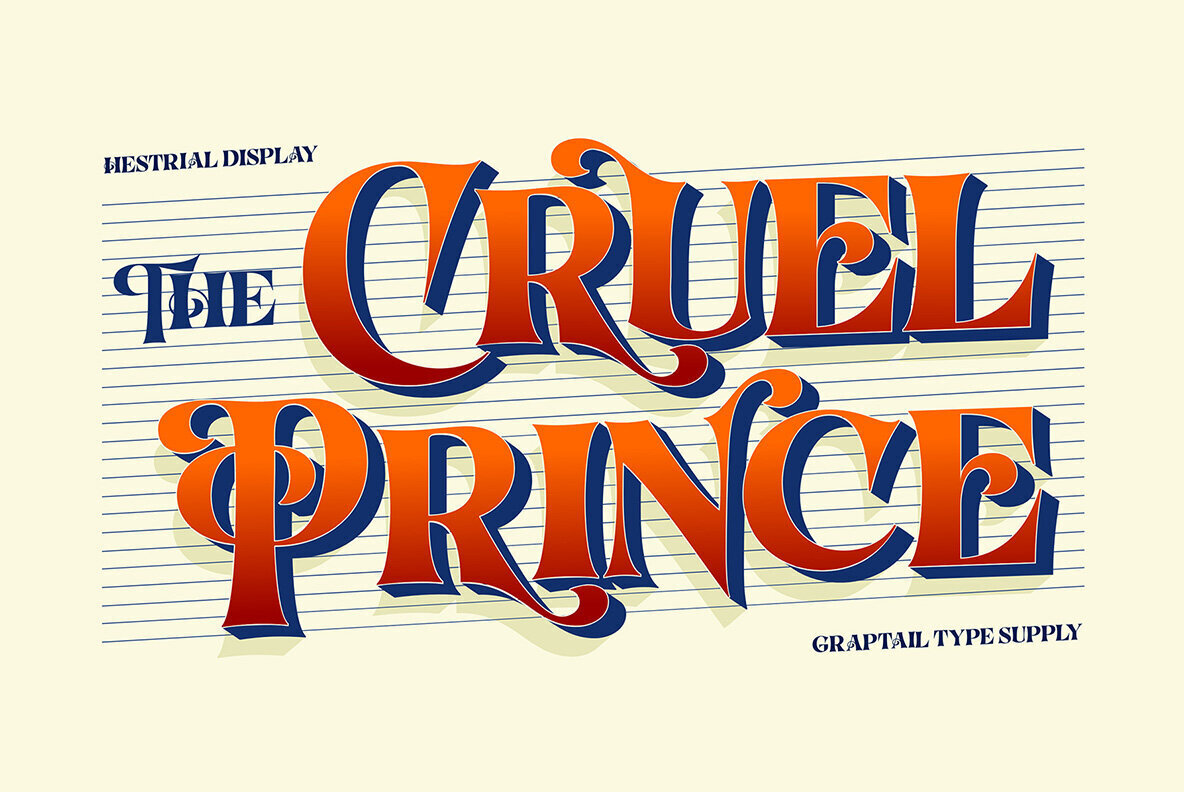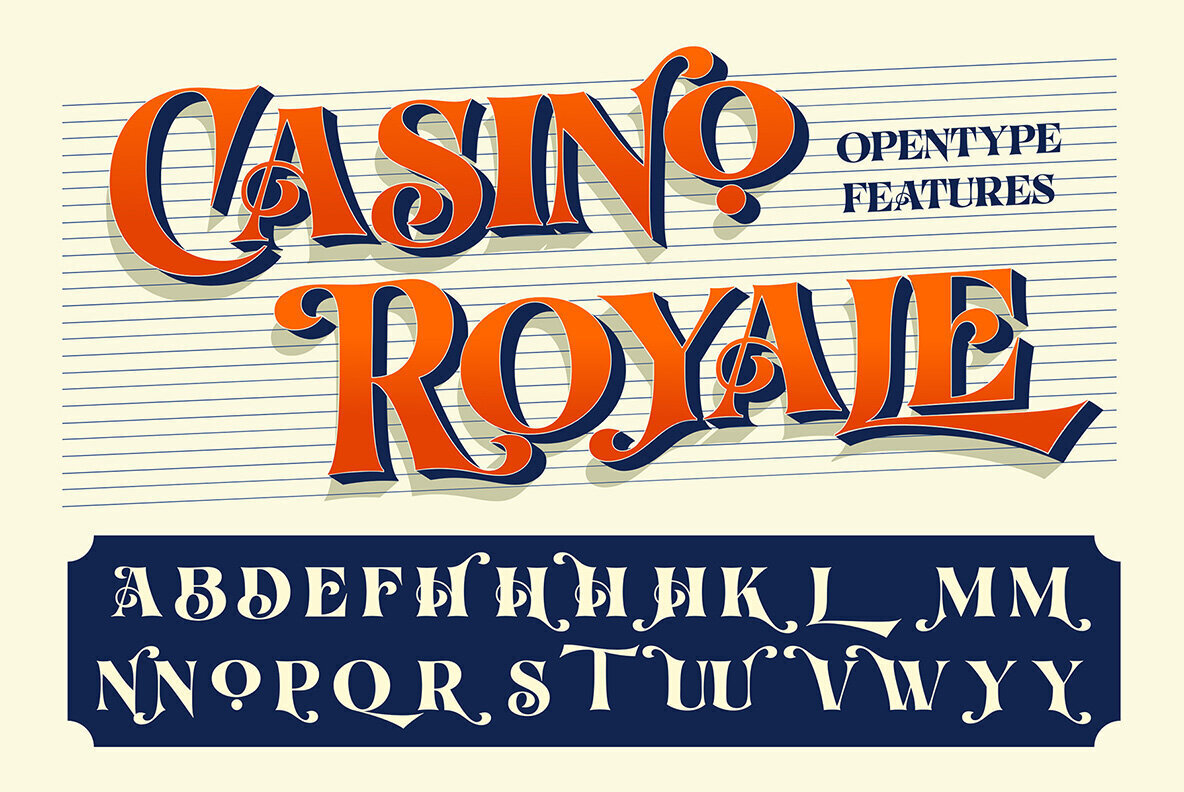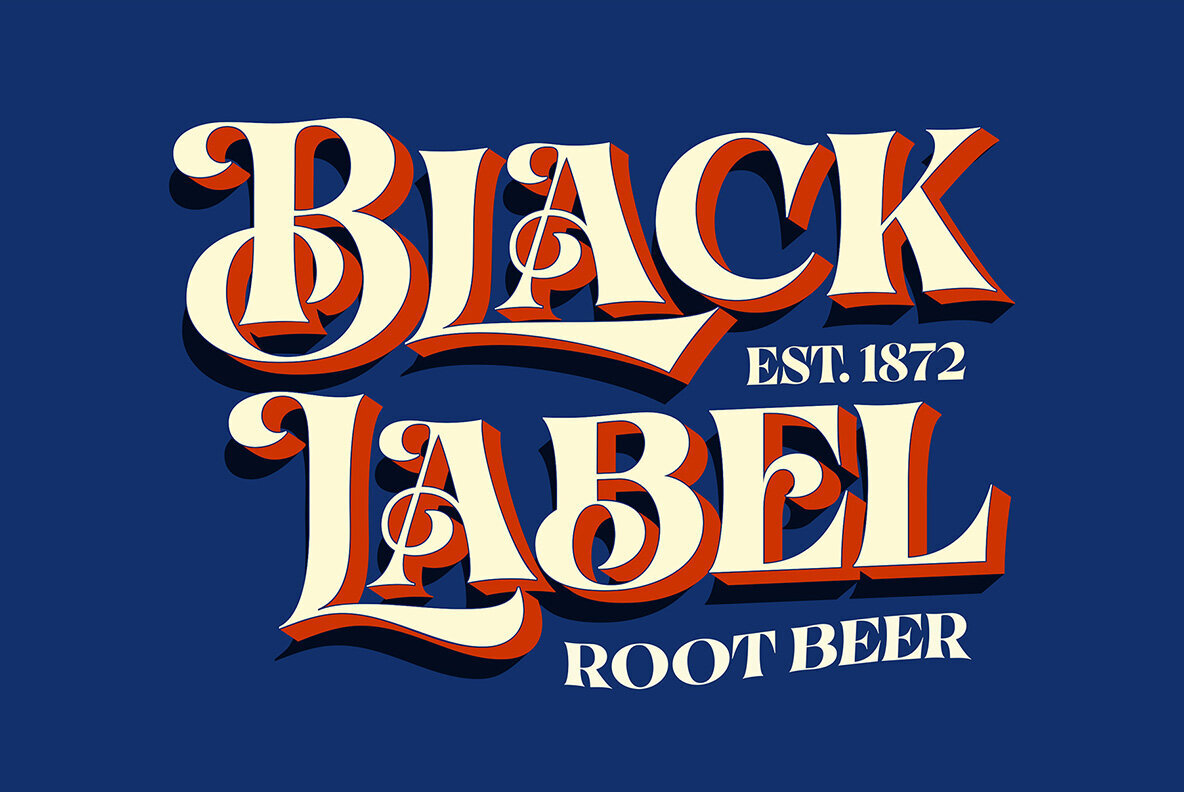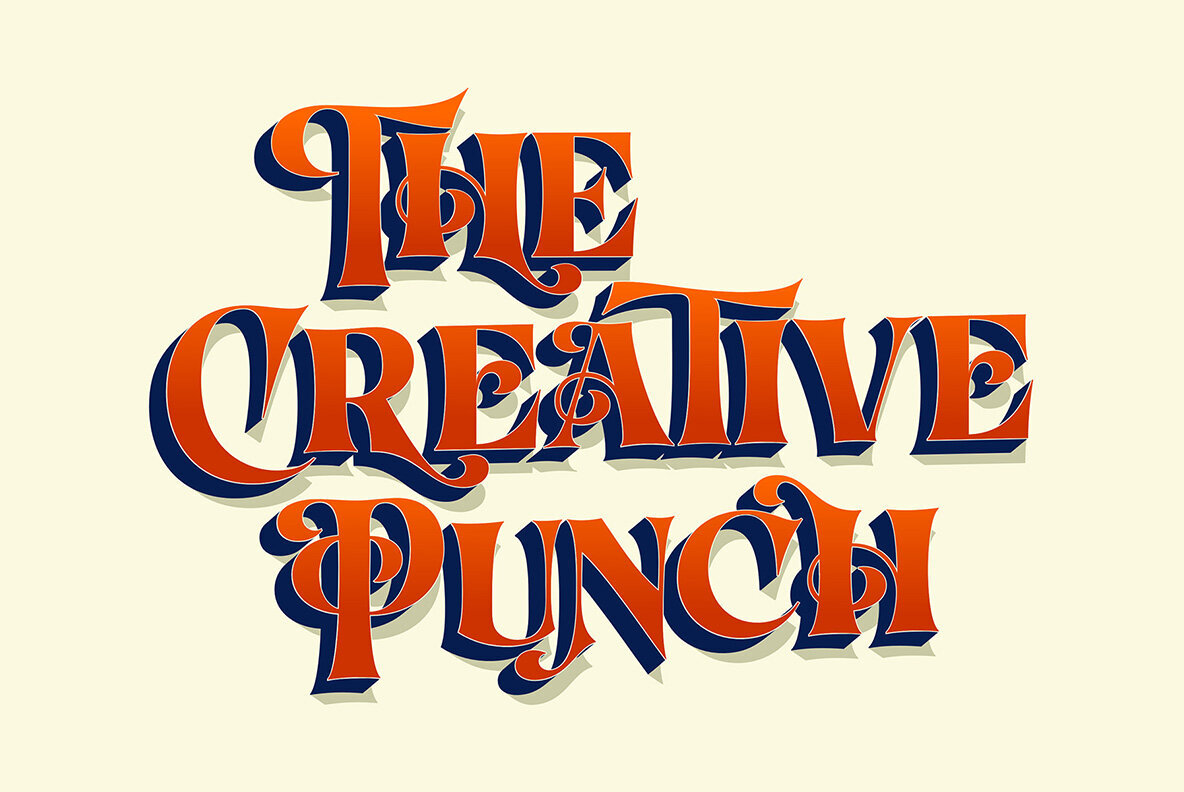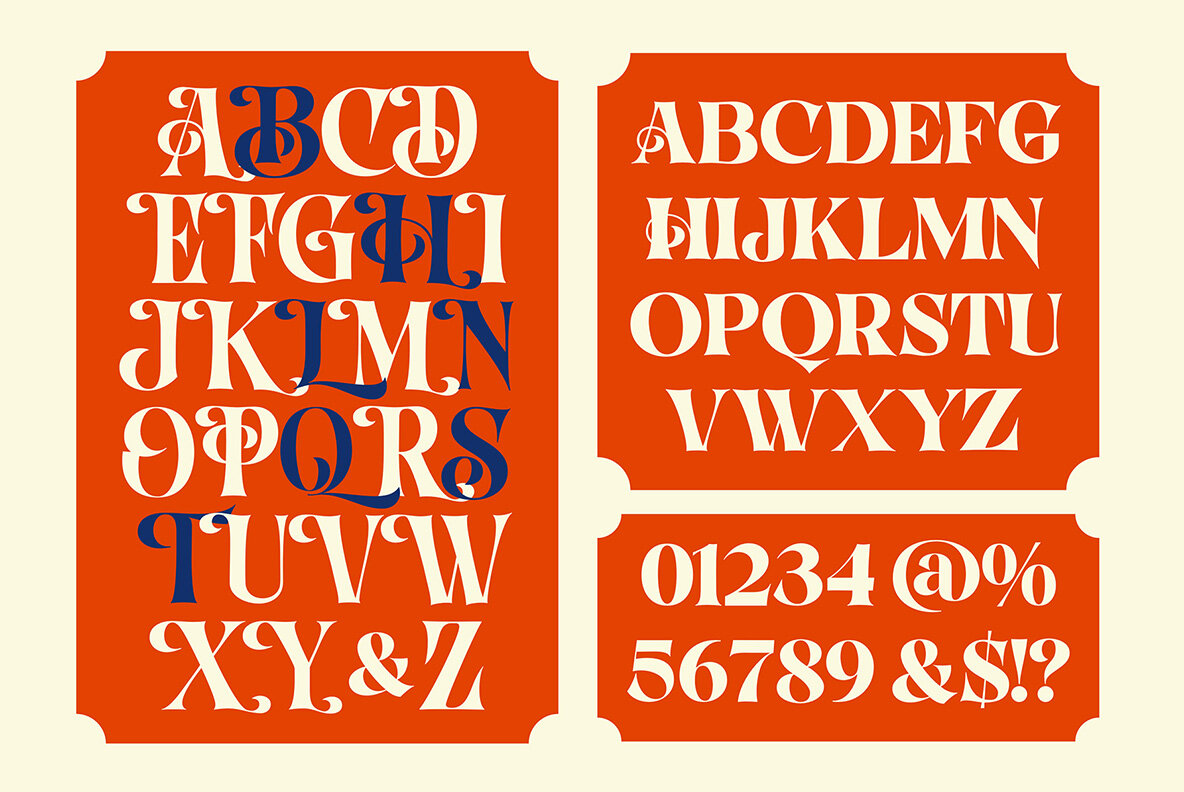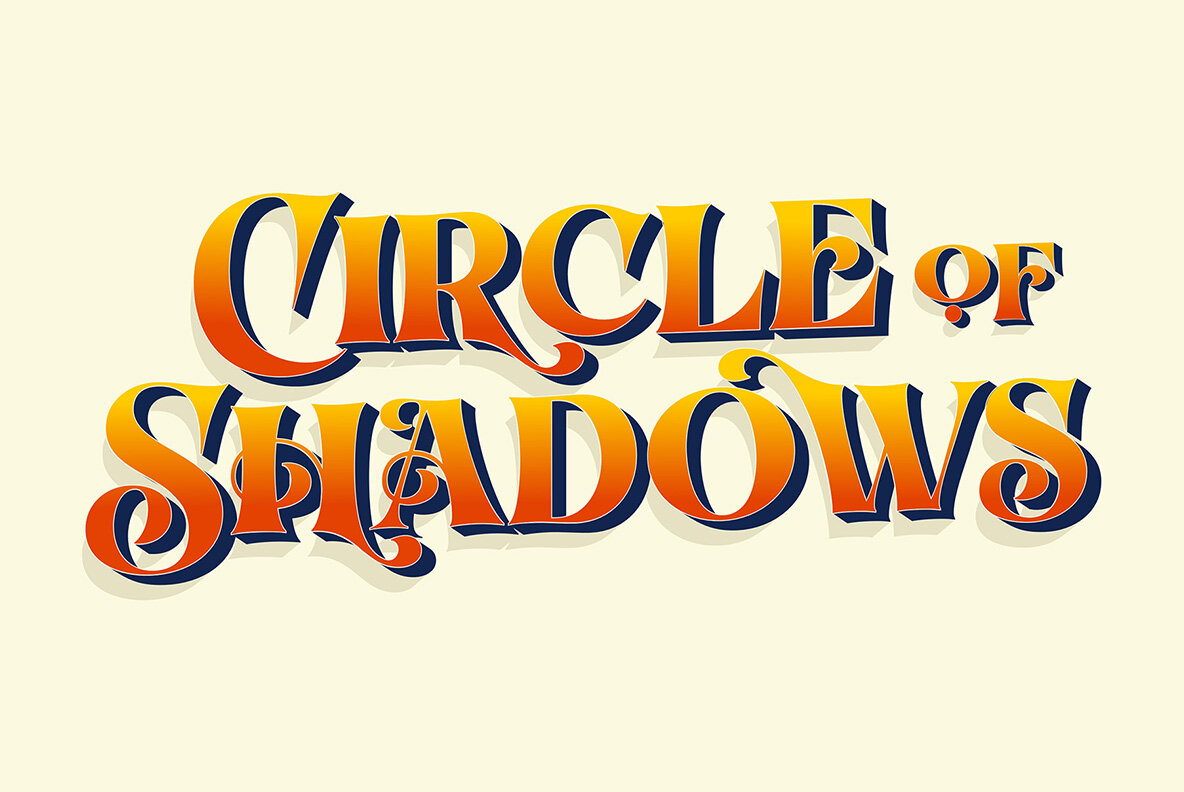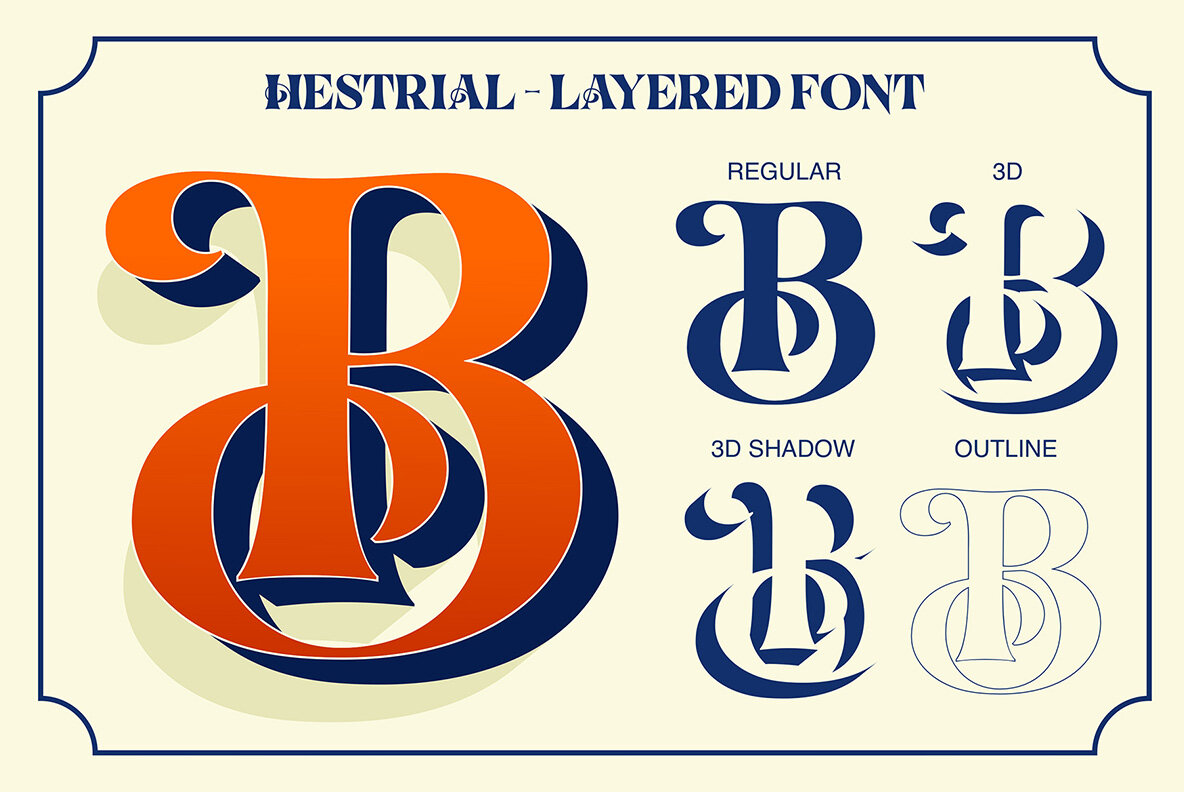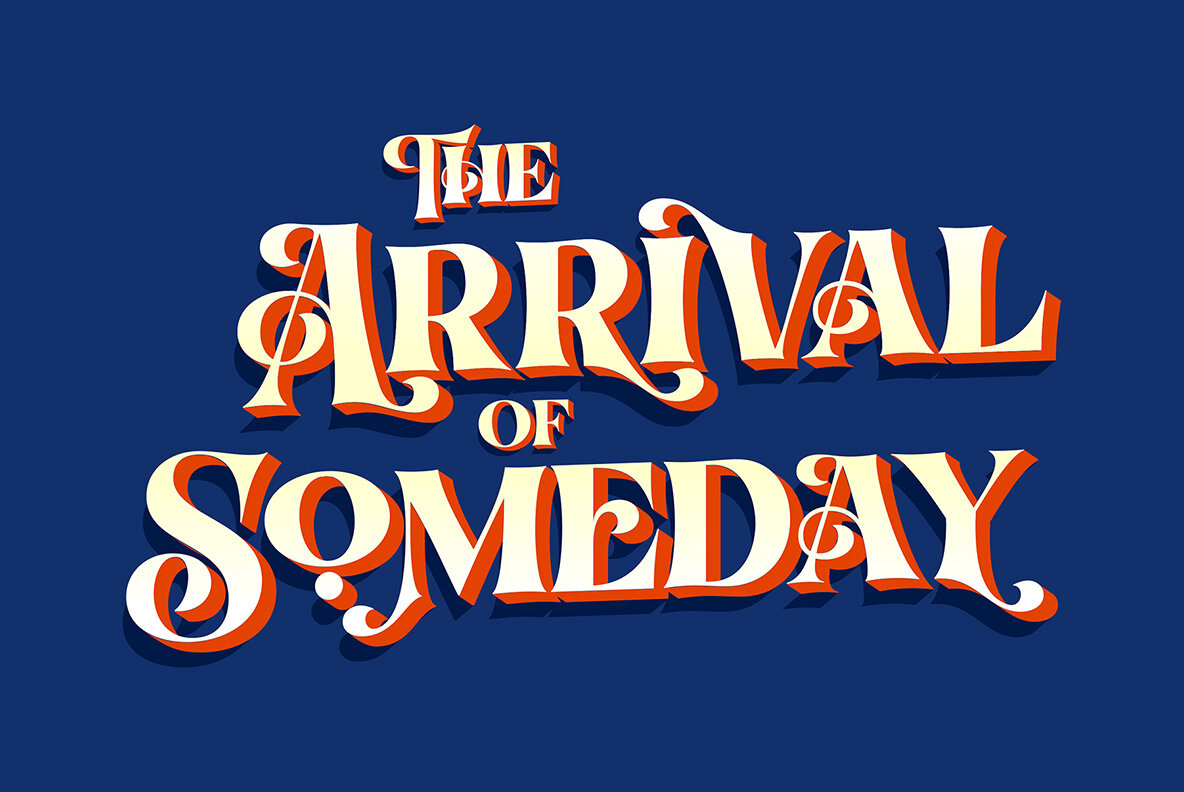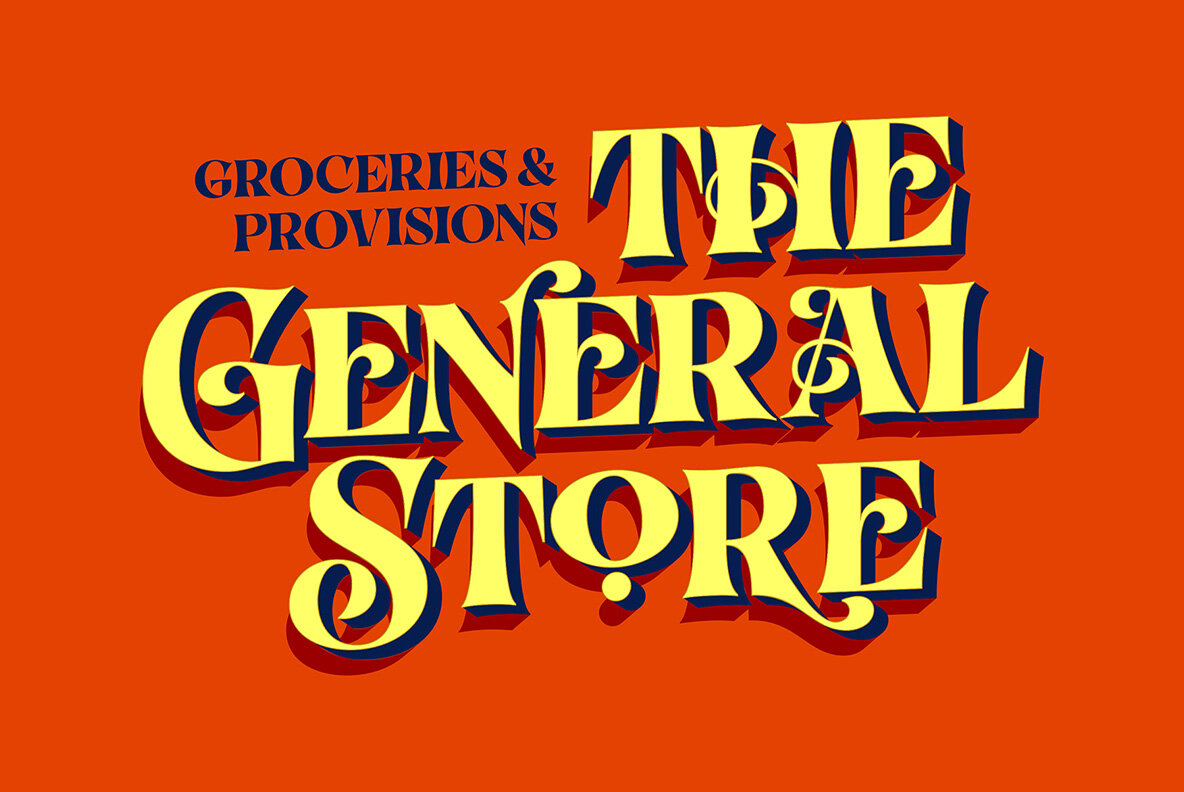
Hestrial Font
Hestrial by Graptail brings a touch of the past to modern design, taking cues from the elegance of classic posters. This display font is entirely handcrafted and offers a unique character that's perfect for creative projects. With its classic inspiration, Hestrial fits seamlessly into logotypes, letterheads, posters, apparel designs, and labels.Hestrial: A Handcrafted Display Font Inspired by Classic Posters